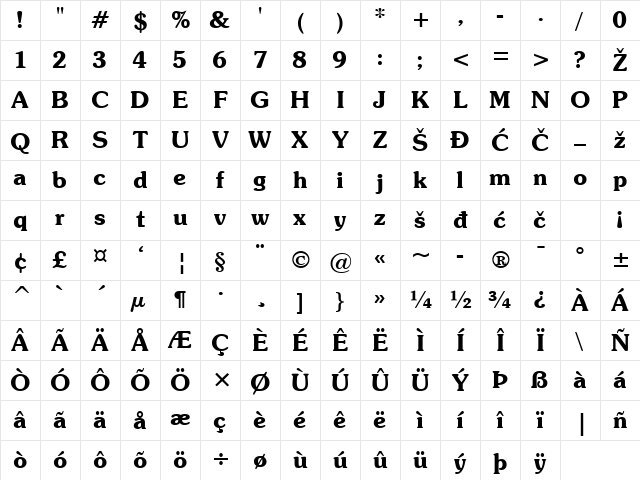
Southern Bold Free Font
Southern Bold
Southern Family
Design Context for Southern
Southern is a composed and adaptable typeface that performs quietly and consistently across a wide range of design contexts. Its bold stroke weight gives it real presence on the page.